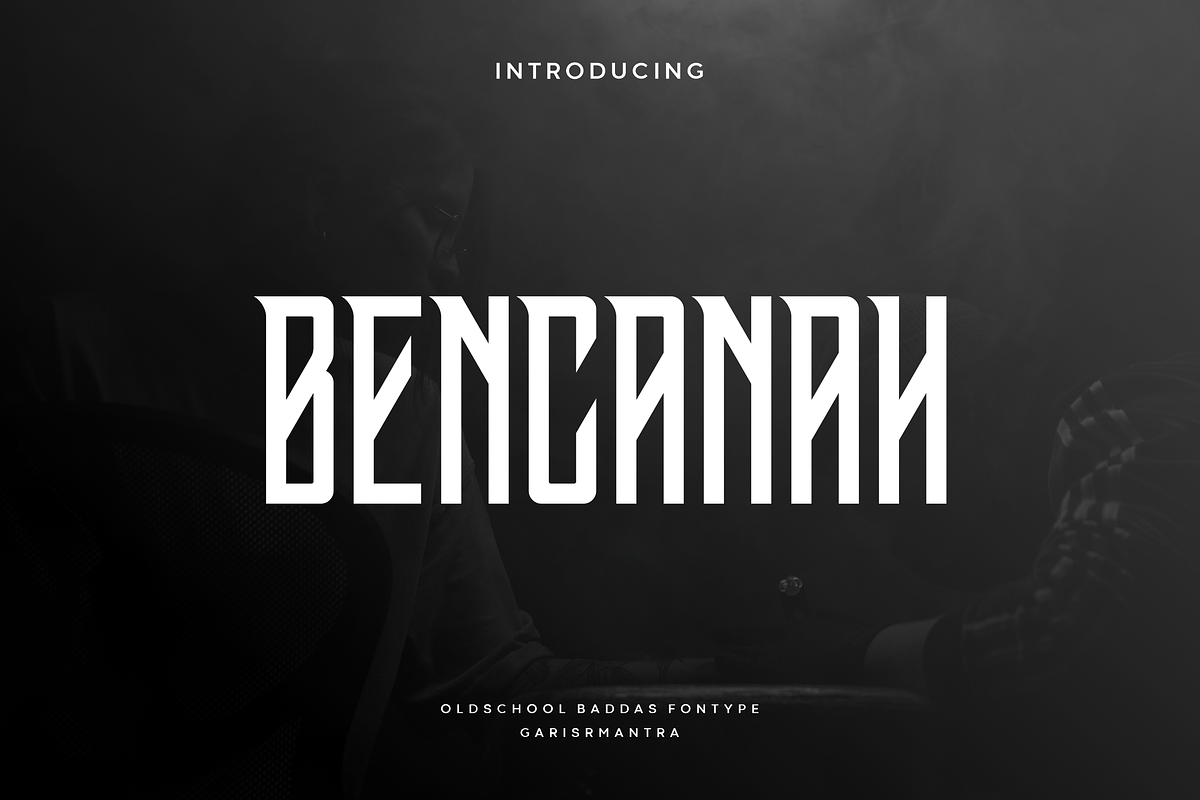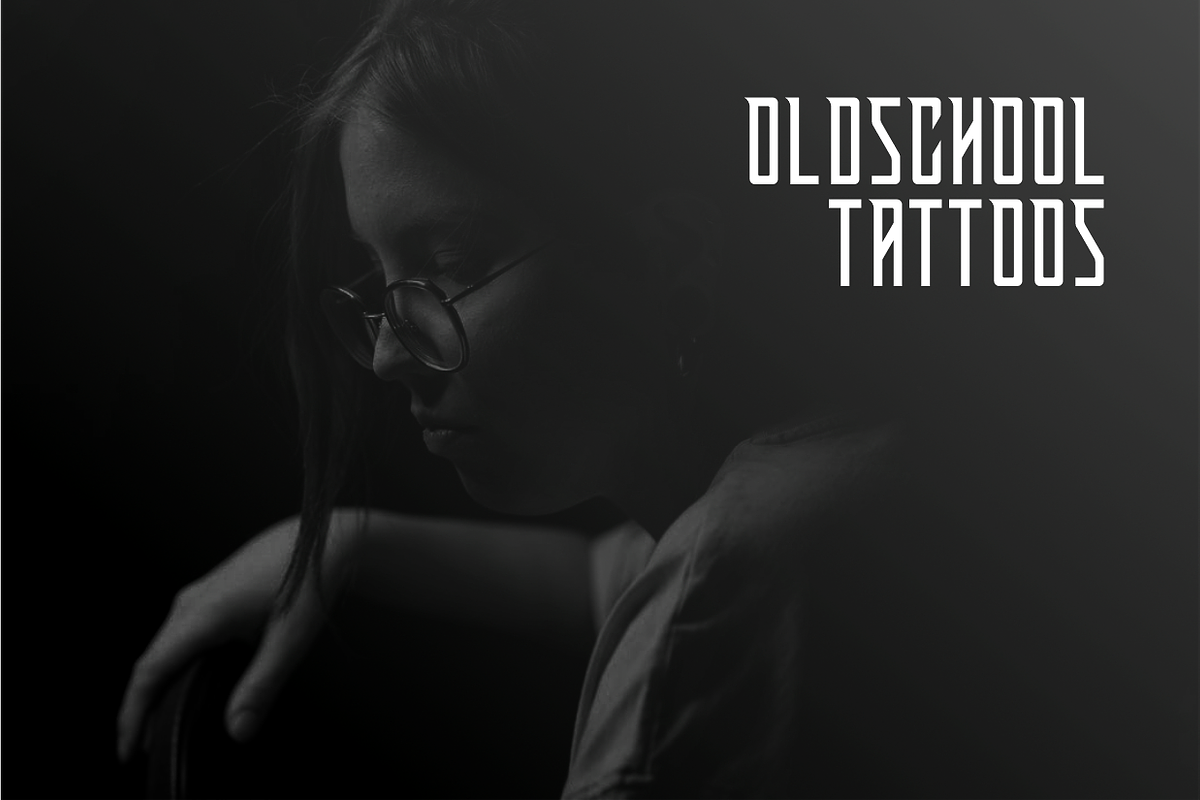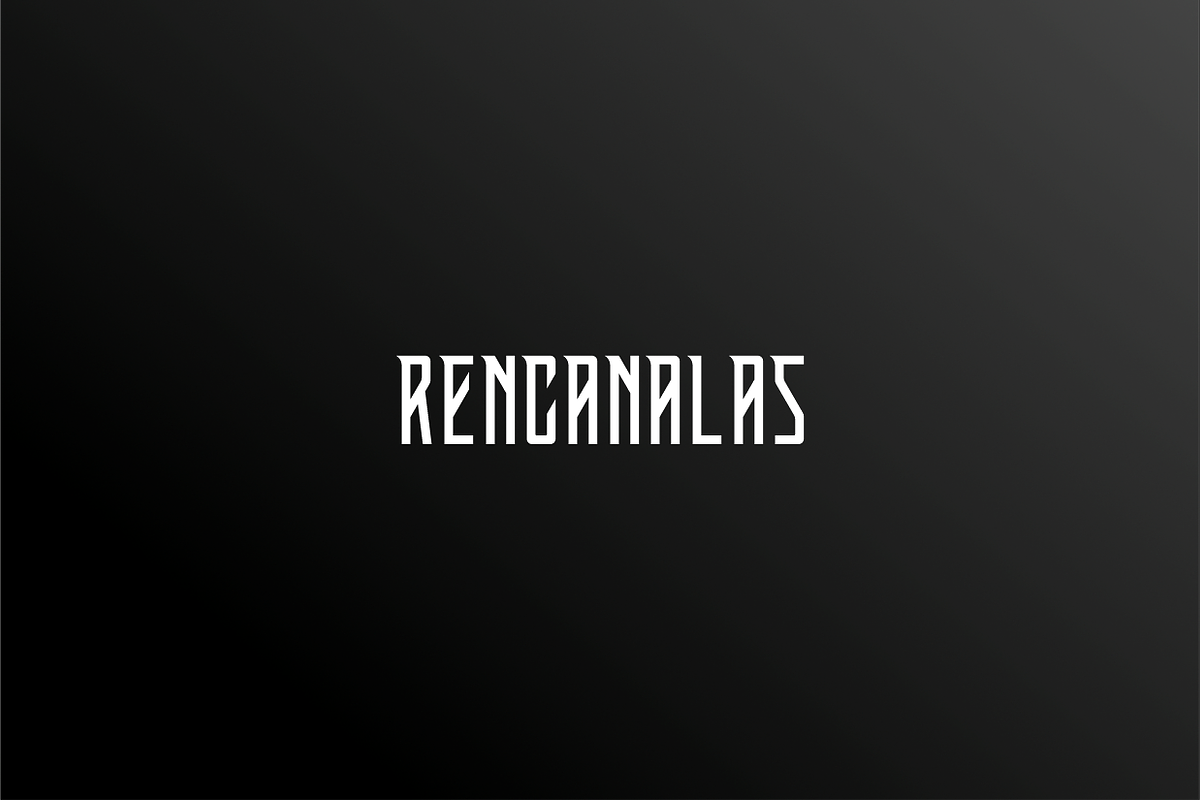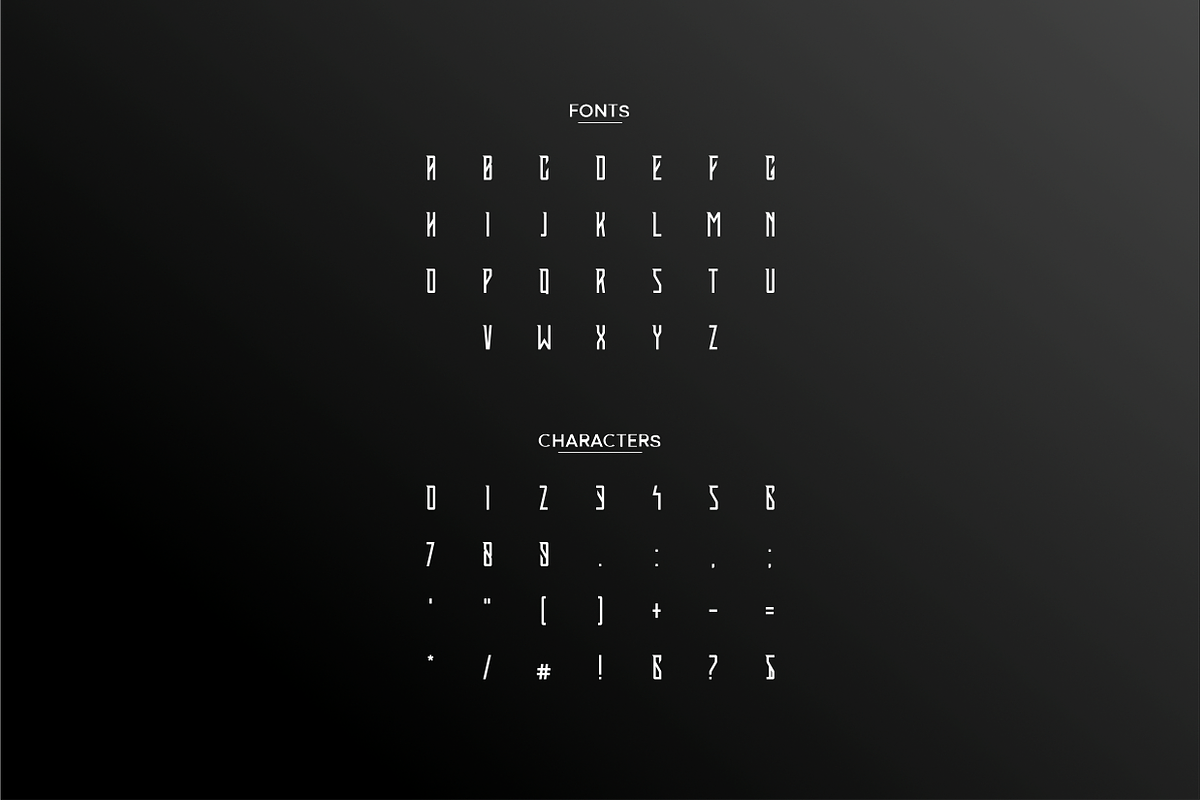
Bencanah
Bencanah is a handmade, which is combining modern and classic typography with some awesome alternates. Yes we back to early 1800s, bring classic touch on this decade. Inspired by some classic typeface, this very metal looking font should have any of your more thrashing punk or biker designs really screaming, head banging while throwing up your metal horns! Rock On!